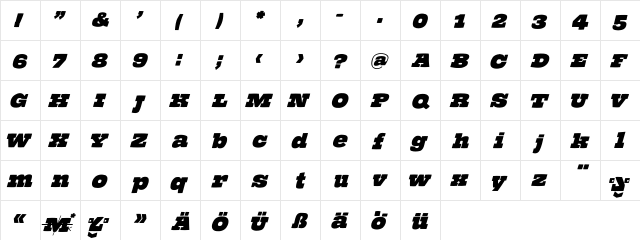
TheHammerSlabserif Medium Italic
Design Context for TheHammerSlabserif Typeface
TheHammerSlabserif combines the readability of serif typography with the visual weight of a slab construction, resulting in a typeface that feels both authoritative and approachable. The dynamic lean of this cut emphasises speed and emphasis in any layout.
Suited to magazines, political campaign materials, bold packaging, and any setting where authority matters.
Pro Tip: Use TheHammerSlabserif for headlines and subheadings where its slab serifs can make an impression. It also holds up well in mid-size body copy thanks to its sturdy construction.